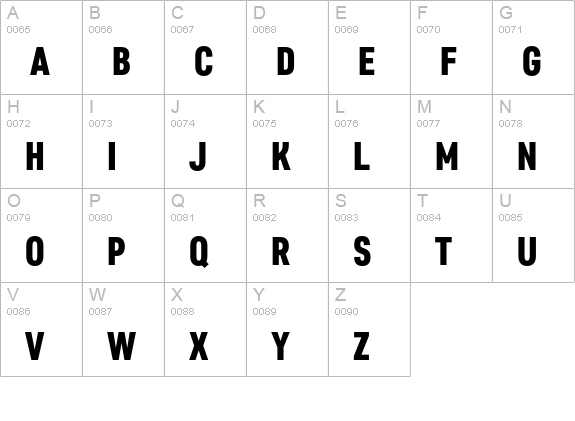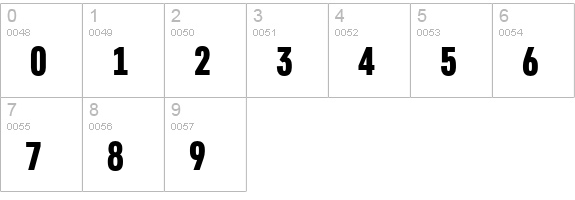
Core Sans D 77 Cn Black is a maximum-weight, dramatic variant in the Core typeface family \xE2\x80\x94 well suited to maximum-impact headlines, posters, and packaging.
Core Sans D 77 Cn Black is a sleek and modern typeface designed for making a bold statement. With its strong and impactful appearance, this font is perfect for headlines, posters, and branding materials. The sharp edges and clean lines of Core Sans D 77 Cn Black give it a contemporary look that commands attention. The best part? Core Sans D 77 Cn Black is available for free download at FontsMarket.com. This means you can easily access this premium font without any cost, making it a valuable addition to your design arsenal. Whether you're working on a professional project or a personal creative endeavor, Core Sans D 77 Cn Black is a versatile font that will elevate your designs to the next level. Download it today and unleash the power of this striking typeface in your work!